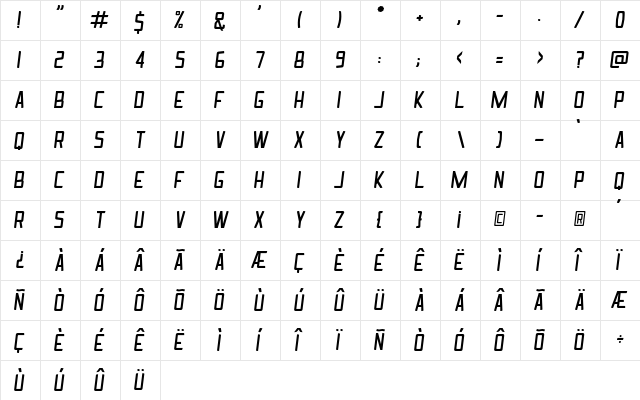
Ingrata Italic
| Foundry | a Falange | est?dio. Elvis H. Martuchelli - Vinicius de Abreu Lima - Ricardo Jacob Hessel |
| Designer | Elvis H. Martuchelli @ a Falange | est?dio |
Design Context for Ingrata Typeface
Ingrata is a composed and adaptable typeface that performs quietly and consistently across a wide range of design contexts. Its italic angle brings a sense of urgency and motion to the letterforms.